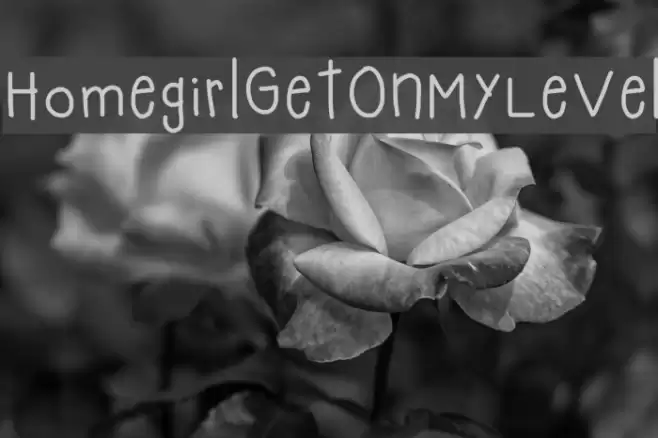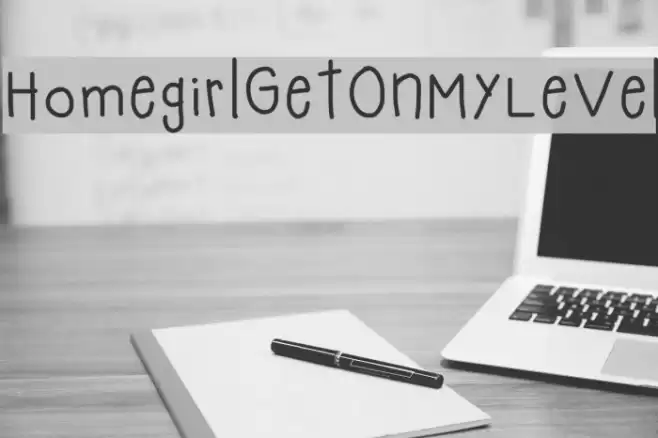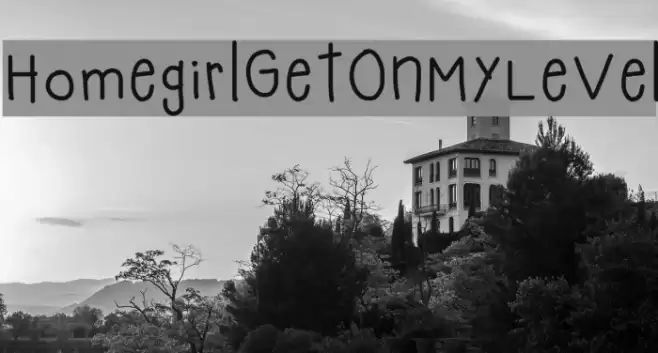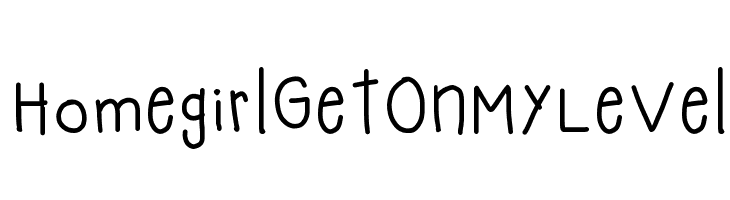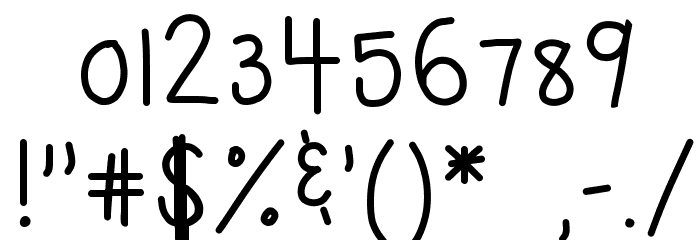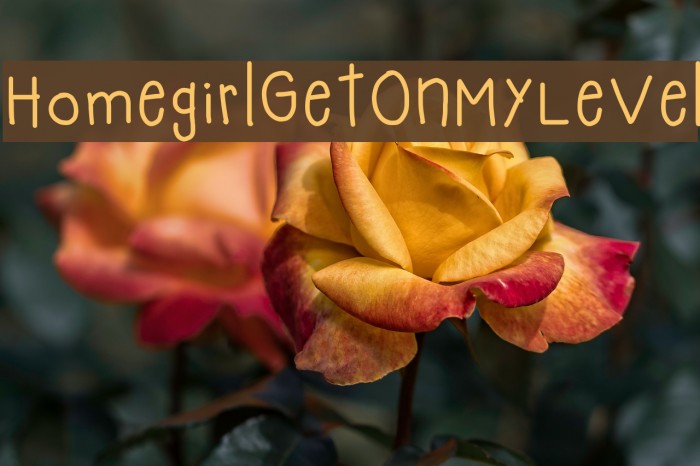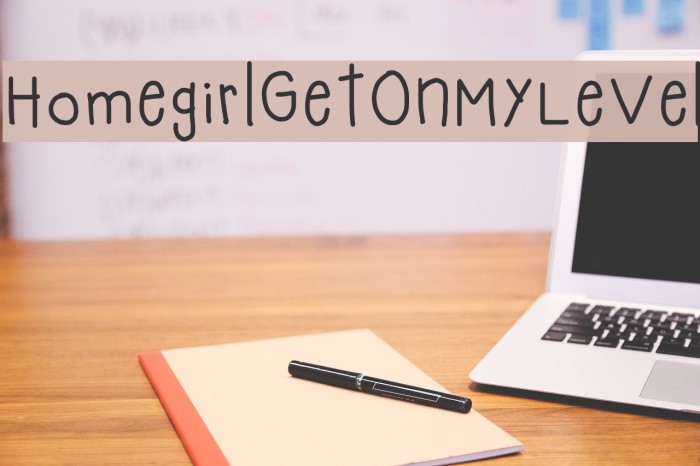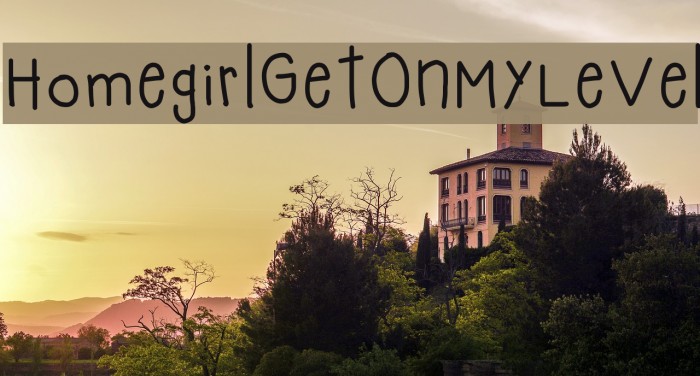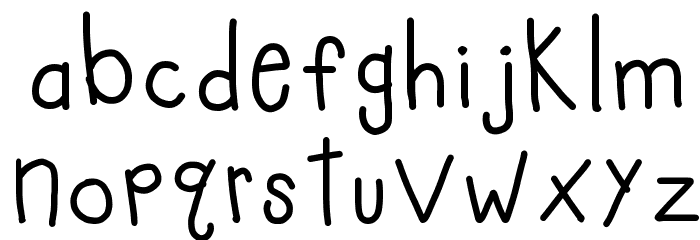
HomegirlGetOnMyLevel Font
HomegirlGetOnMyLevel Description
This playful and casual font features a handwritten style with a lively and informal appearance. The characters are slightly irregular, adding a personal touch that mimics natural handwriting. The strokes are consistent in thickness, giving it a uniform look while maintaining a sense of spontaneity. The letters are well-spaced, ensuring readability, and the overall design is approachable and friendly. This font is perfect for projects that require a personal or informal touch, such as greeting cards, invitations, or playful branding materials.
A playful, handwritten font with a casual and informal style from Uncategorized fonts.
- Proposed Projects: Ideal for greeting cards, invitations, playful branding, and personal projects.
- Overall Style: Casual, Playful
- Use Case: Logos, Headlines, Informal Text